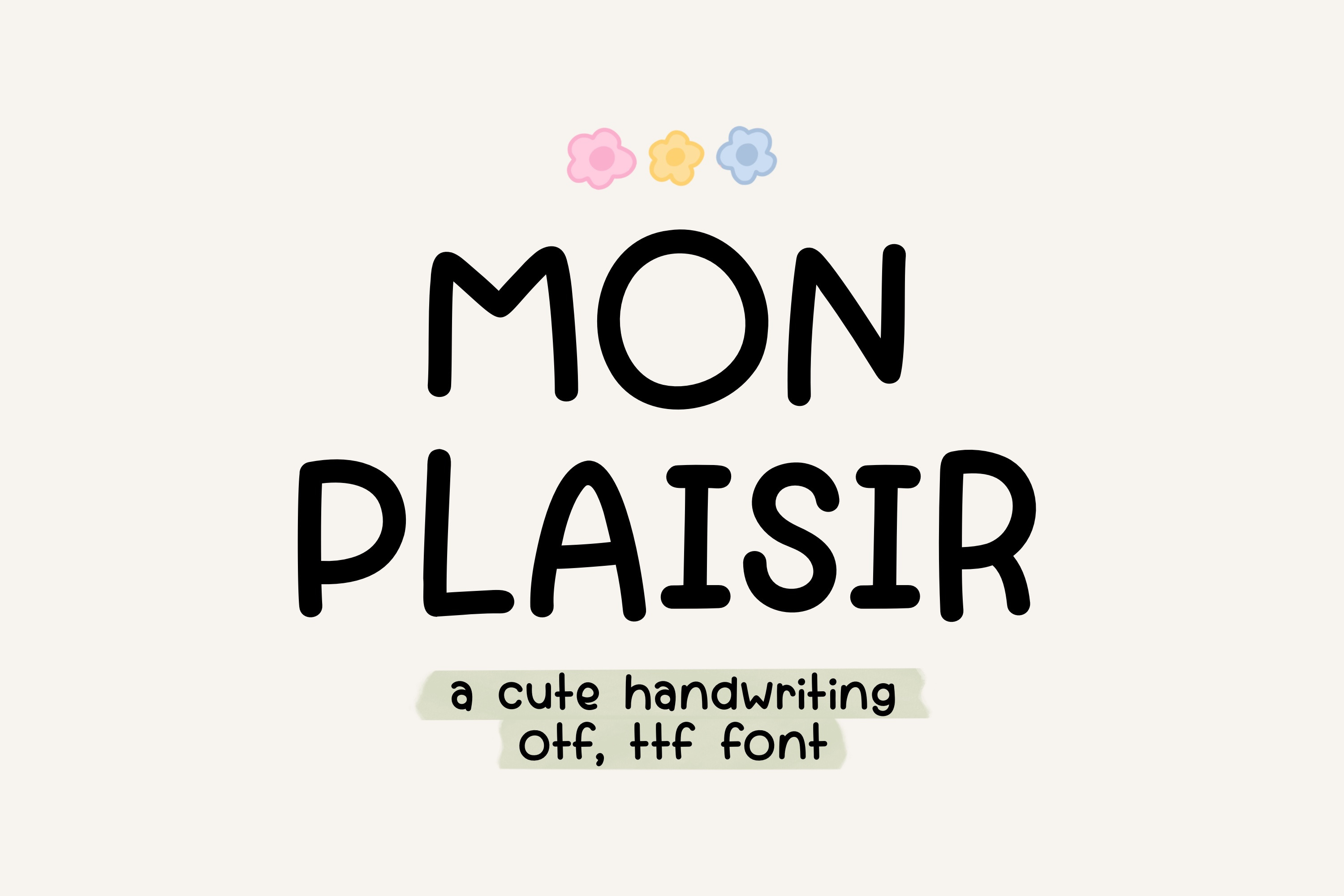
Mon Plaisir cute font handwriting
Mon Plaisir is a simple and cute handwritten font. You can use this font in various projects - blog posts, digital planner, invitations, greeting cards, planners, photo albums, decorations and much more. Thank you :)